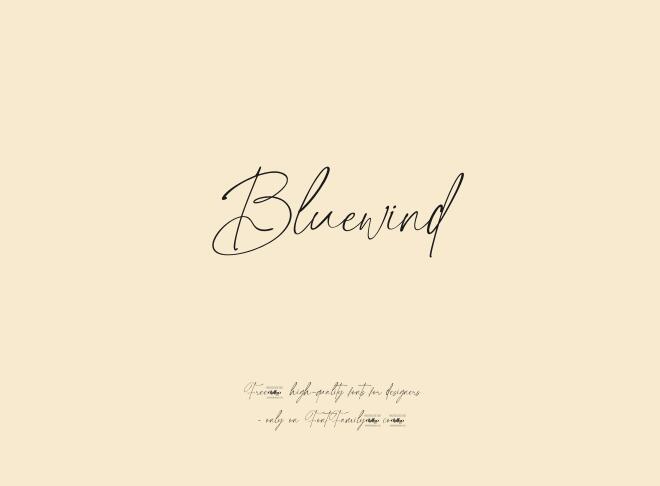
Bluewind Font
Bluewind Font is a playful and modern script font with a unique style. Its handwritten appeal gives it a casual yet stylish vibe, making it perfect for various design projects. The font is reminiscent of the free-flowing handwriting of a creative mind at work. Its modern twist makes it a great choice for branding, social media designs, and other digital artworks. The Bluewind Font stands out in the crowd with its artistic flair and contemporary feel, similar to popular fonts like Brush Script and Mistral, yet it maintains its uniqueness. Being free for personal use, it's an excellent choice for designers looking to add a fresh and innovative touch to their projects. Its easily readable form makes this font versatile, and its distinct style makes it memorable. Explore the creative potential of your designs with the Bluewind Font.